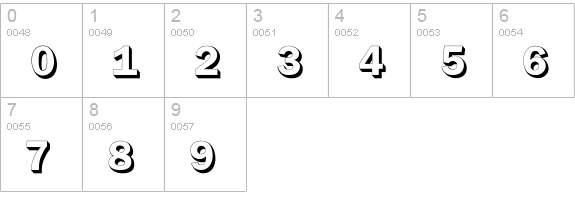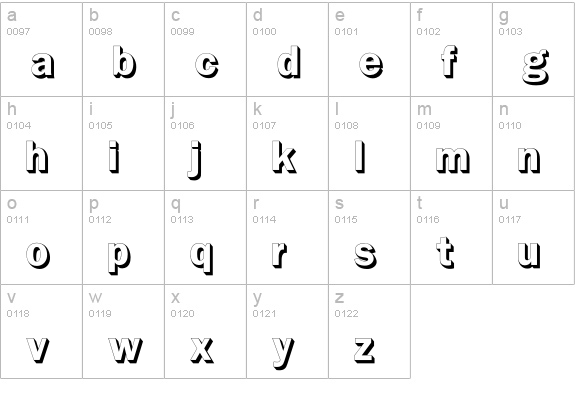
FranklinOutlineShadow Font Details
FranklinOutlineShadow font is a striking display typeface that combines sleek modern lines with a touch of classic elegance. The outline style gives it a contemporary feel, while the shadow effect adds depth and dimension to each letterform. Perfect for eye-catching headlines, logos, and posters, this font exudes confidence and sophistication. Best of all, FranklinOutlineShadow font is available for free download at FontsMarket.com. Whether you're a designer looking to add a unique touch to your projects or a creative individual seeking to make a statement, this font is sure to impress. Download it today and elevate your designs with the bold and distinctive look of FranklinOutlineShadow font.